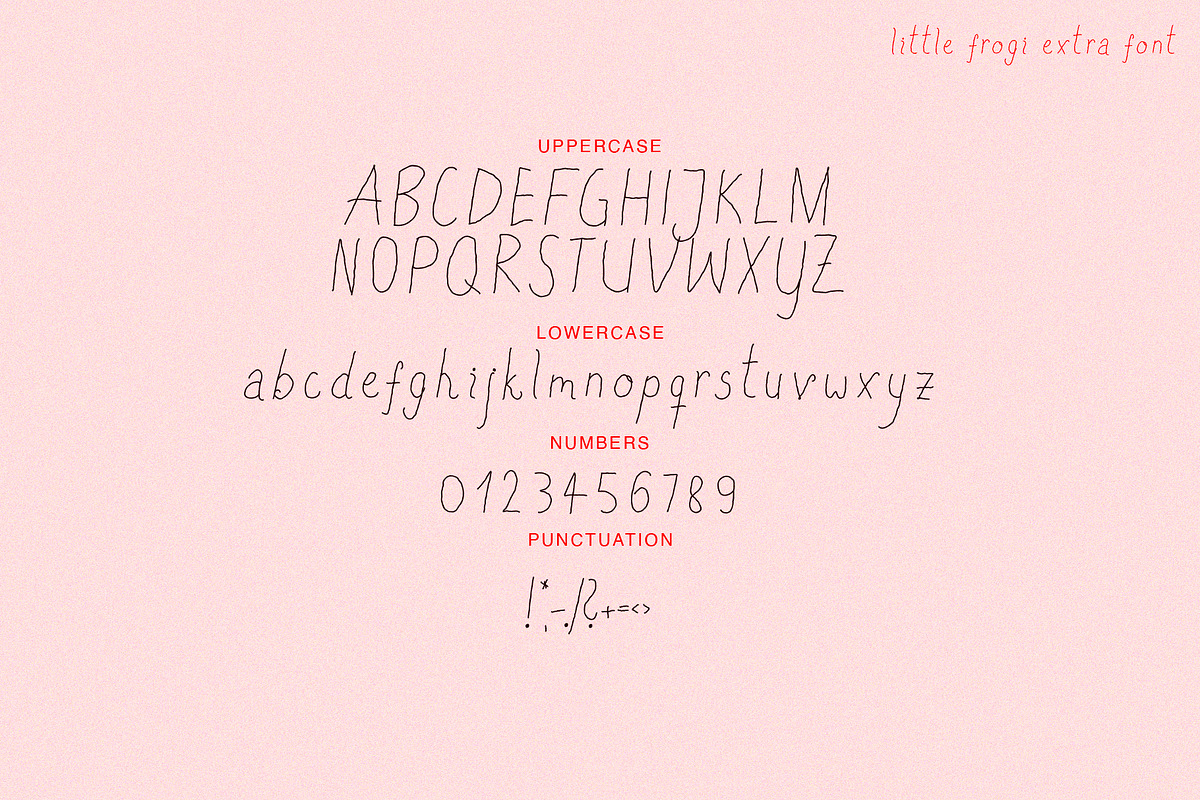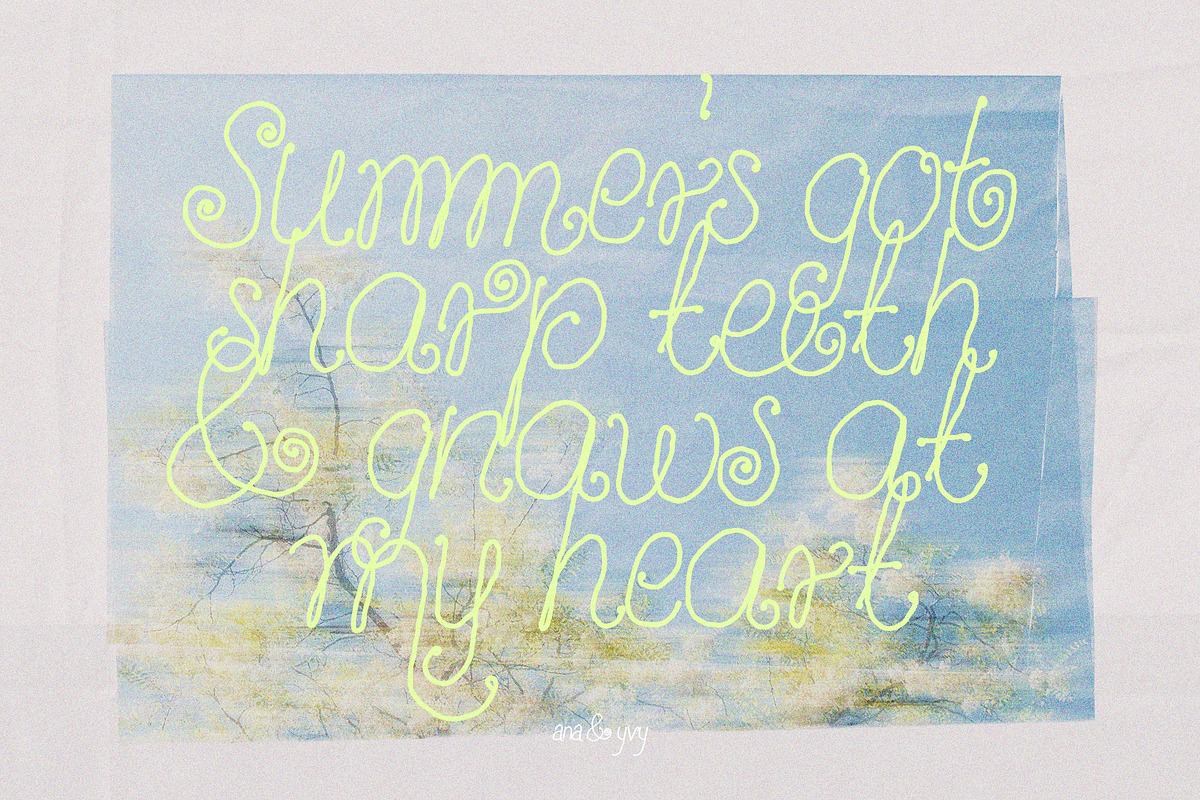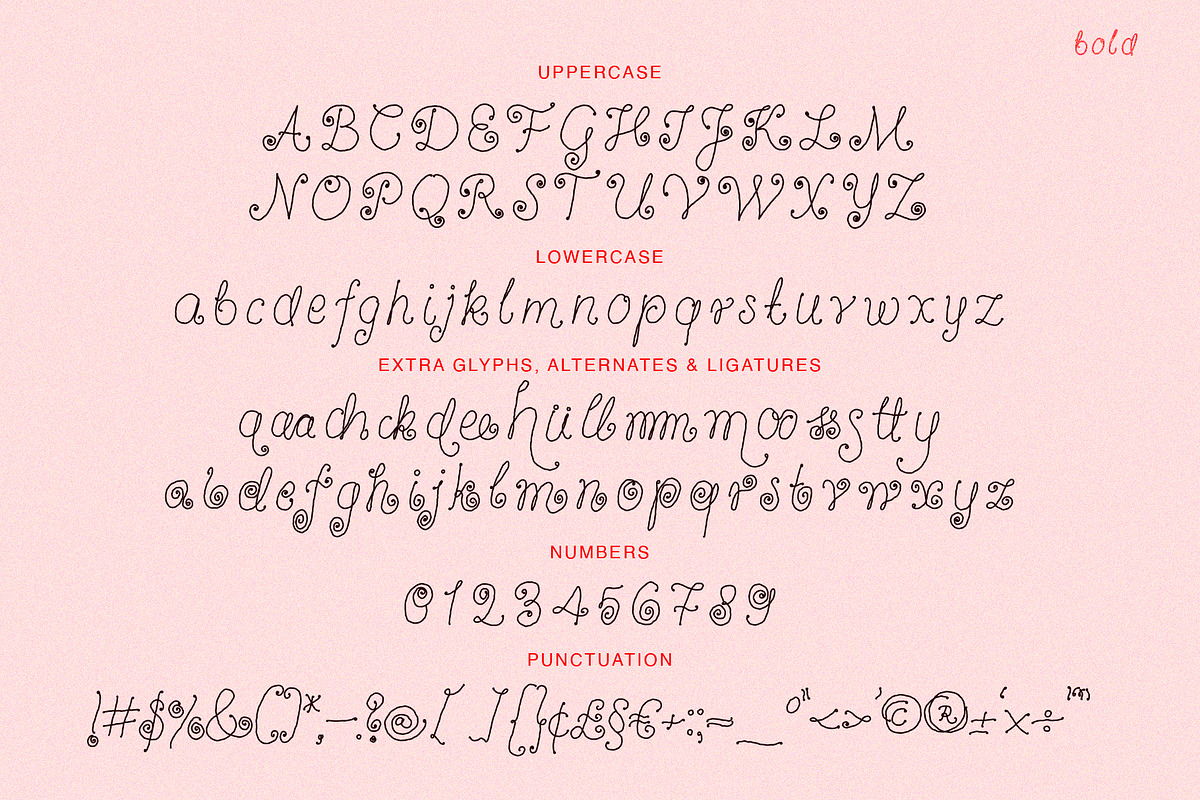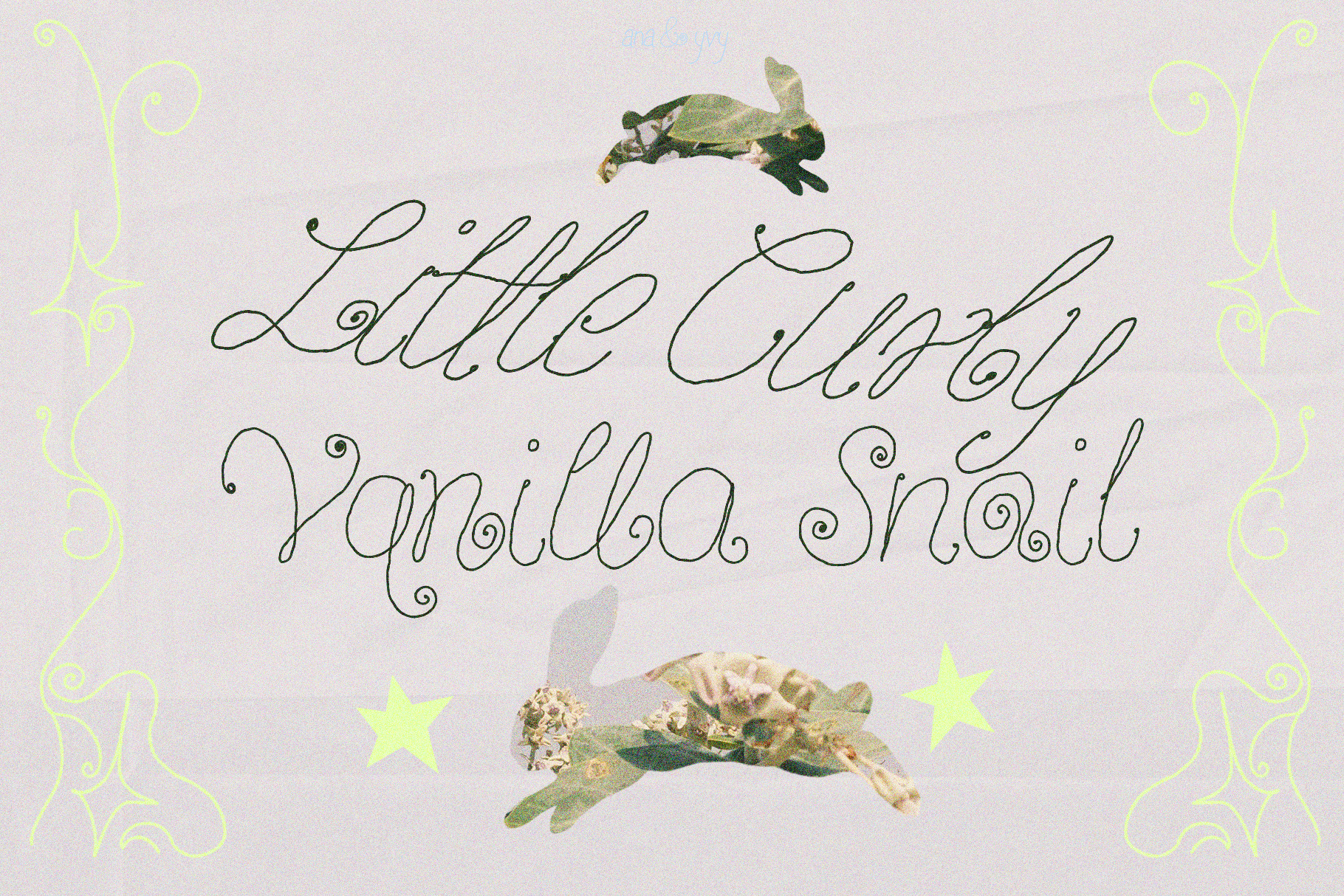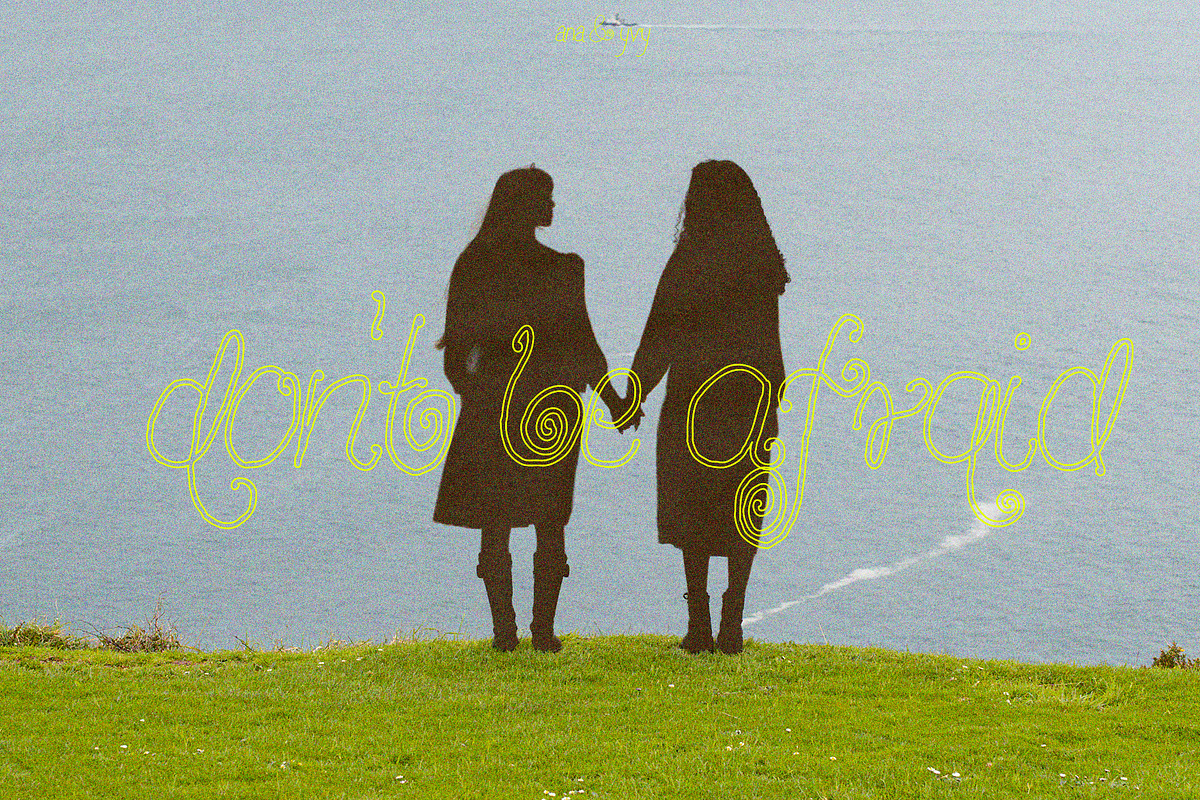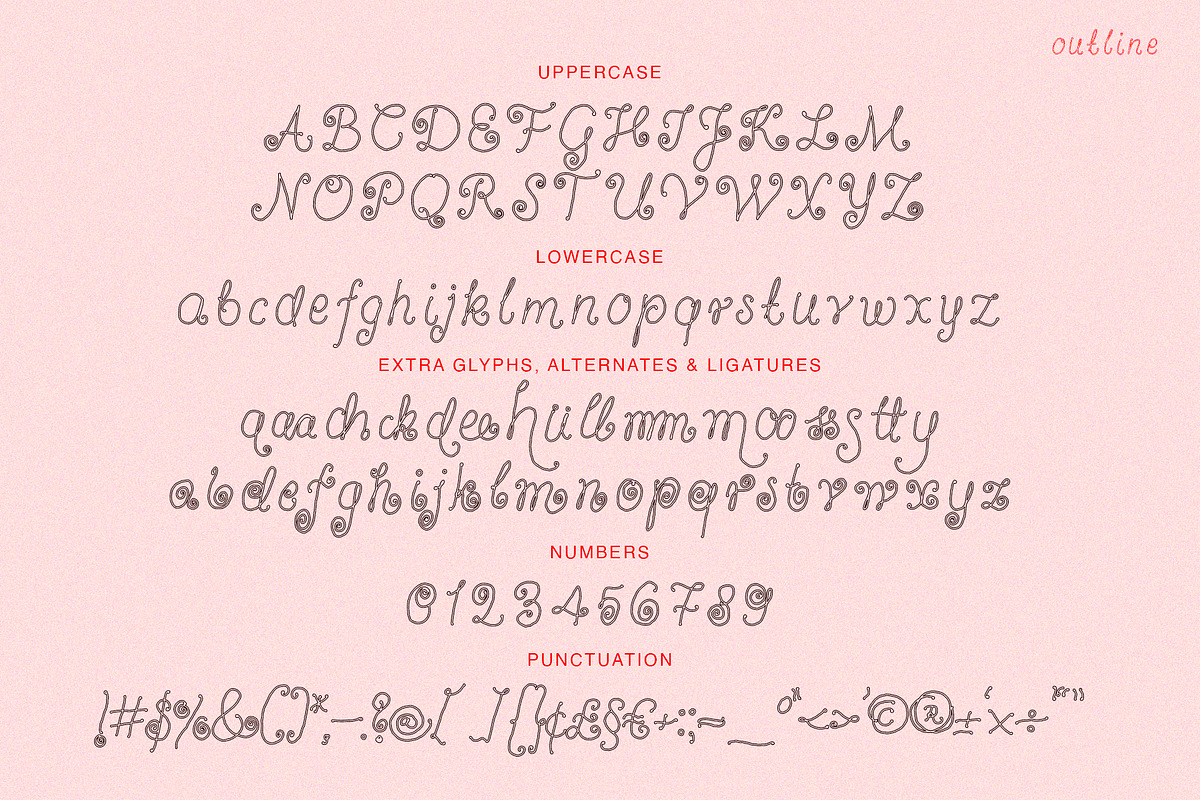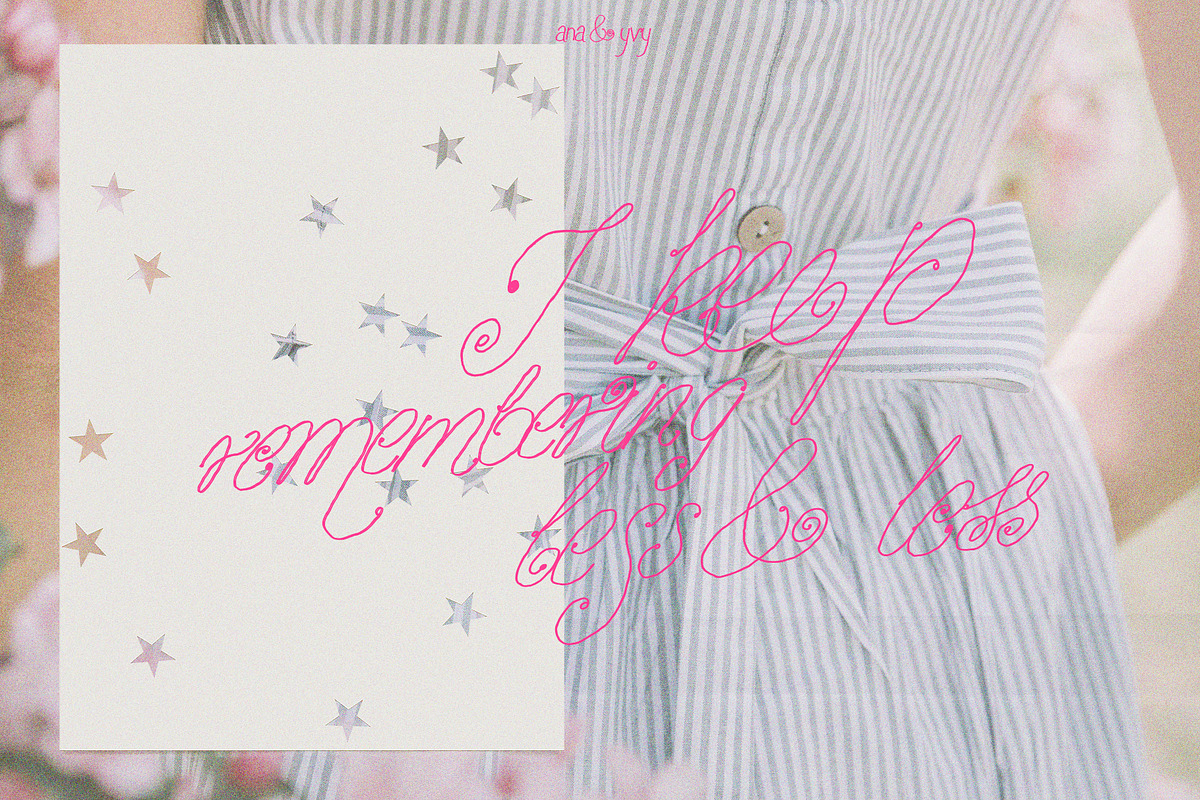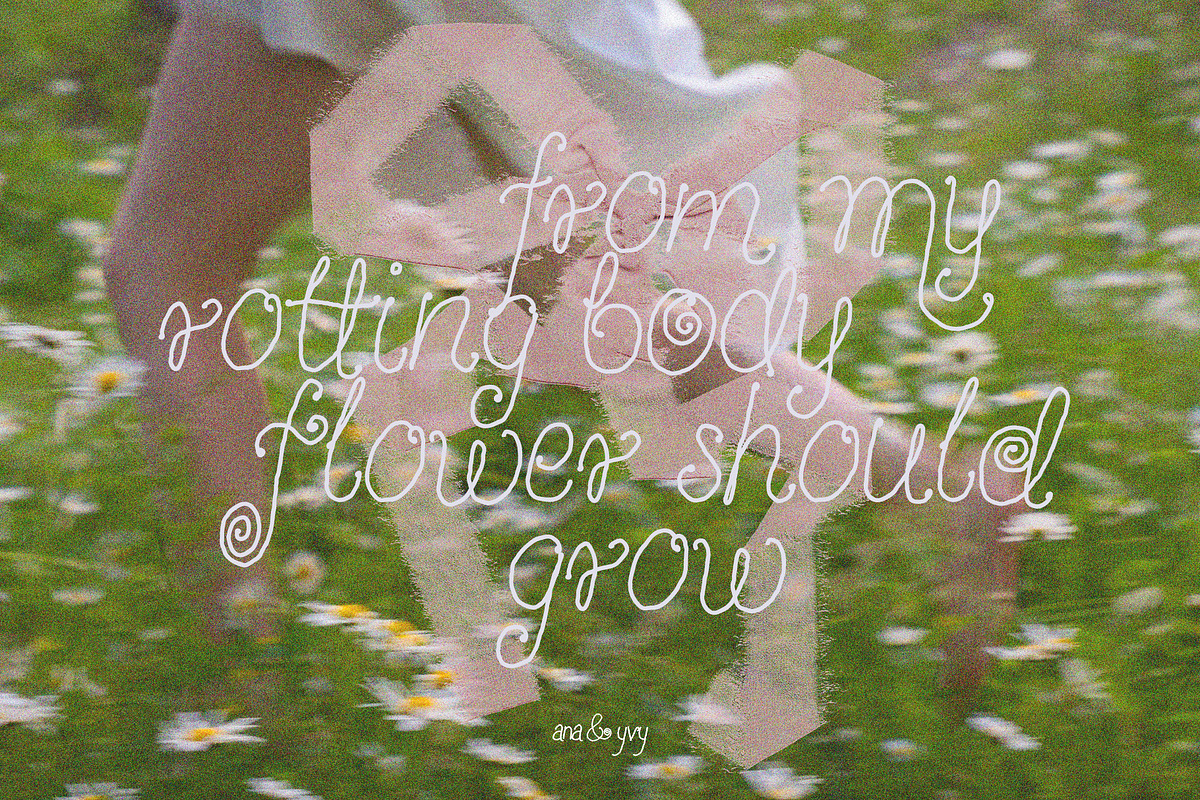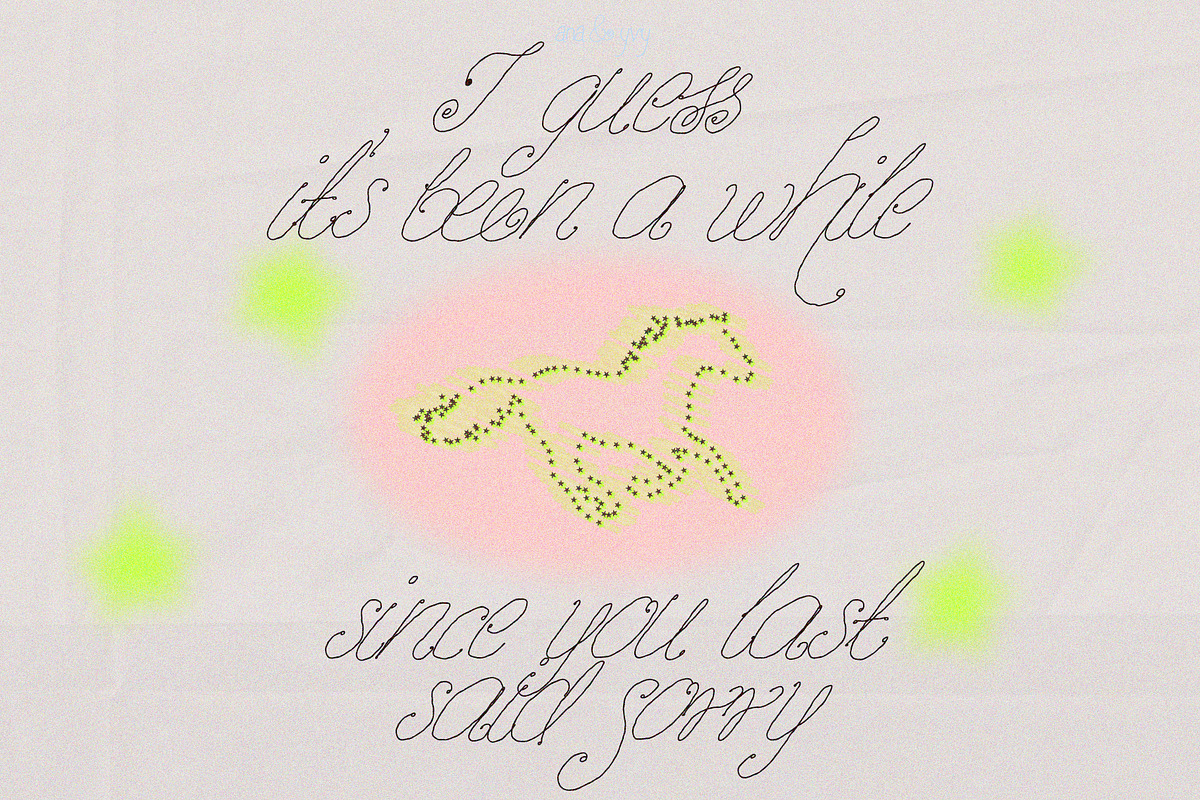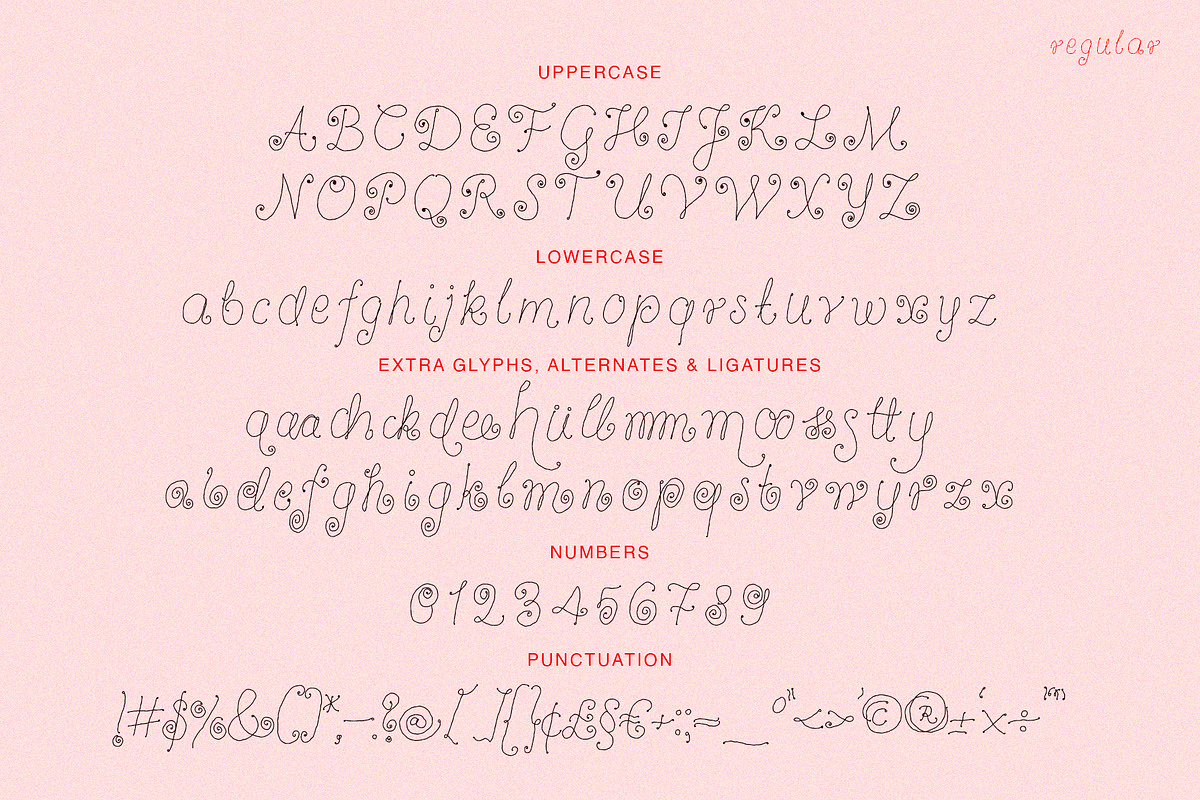
Vanilla Snail Curly Font Collection
Vanilla Snail is the main font of an entire collection of hand-drawn imperfect, wonky and whimsical curly fonts. A playful curvy and handmade aesthetic with lots of alternate glyphs gives this creative collection an unique and natural handwritten look. Playful curls, dot endings and a trending outlined version makes this collection even more unique and outstanding. Create an unique and outstanding look for your next project!
Perfect for everything whimsy, quotes and branding.